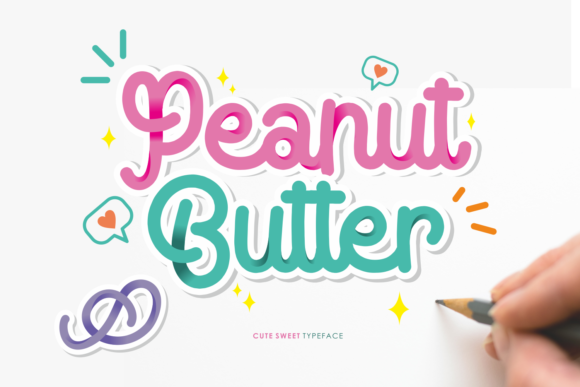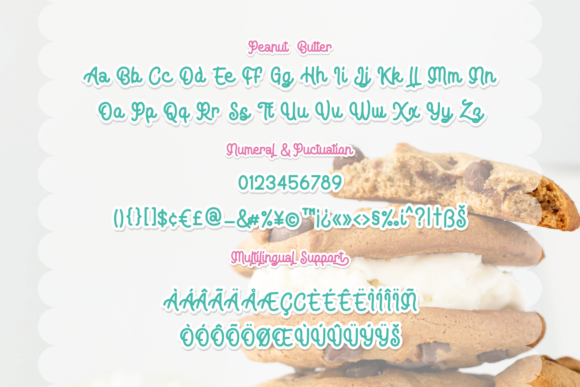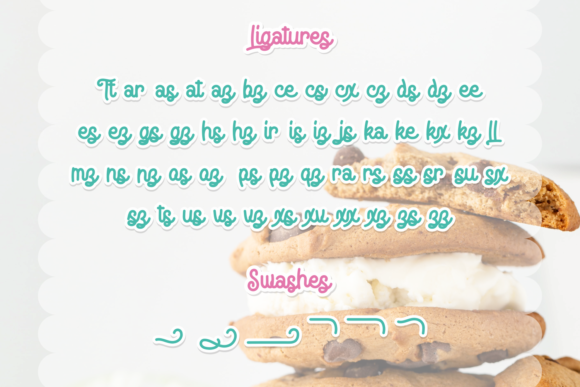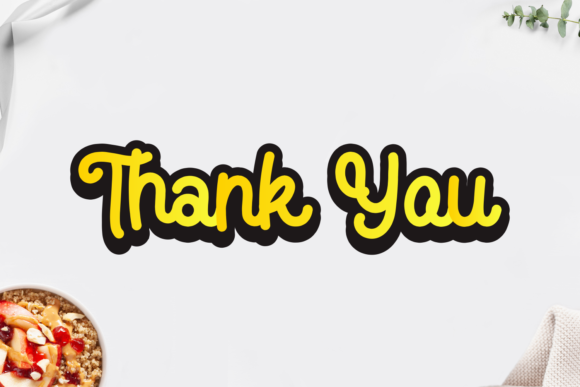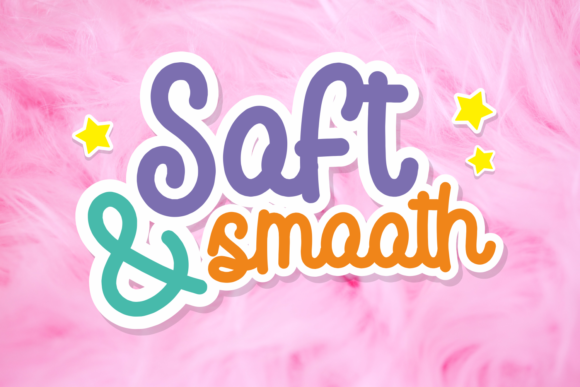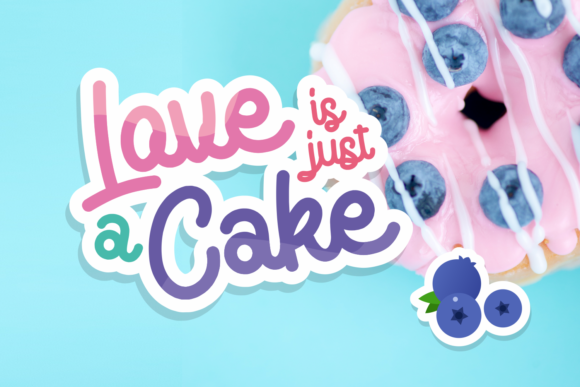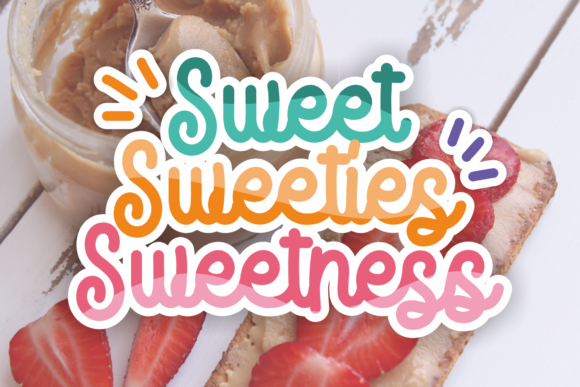
Peanut Butter Font
About Peanut Butter Font
Peanut Butter is a playful, sweet, and quirky handwritten font.
This font is PUA encoded which means you can access all of the glyphs and swashes with ease! It features a varying baseline, smooth lines, gorgeous glyphs and stunning alternates. Get inspired by the Peanut Butter font and brighten up all of your projects!